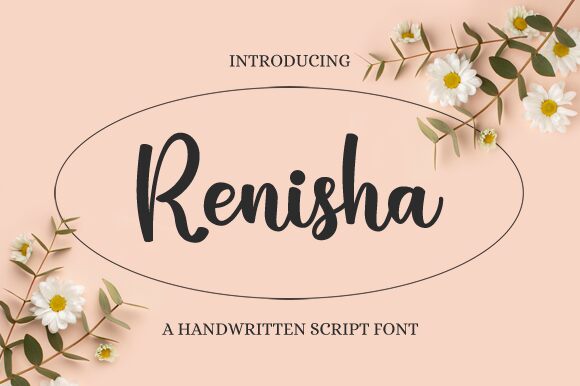
Renisha, crafted by Nirmala Creative, exudes a casual elegance that's both approachable and artistically expressive. Its brush style strokes are reminiscent of a freehand artist at work, giving it a personal touch that adds warmth and character to any project. The fluidity of its letters carries a dynamic rhythm that seems to dance across the page, making it an inviting choice for designs that aim to convey creativity and individuality.
Perfect for branding projects, packaging, and advertising materials where personality is key, Renisha can also bring a humanistic flair to invitations or personalized stationery. This font strikes an exquisite balance between artistic charm and legible design, ensuring that its applications are as versatile as they are visually engaging.